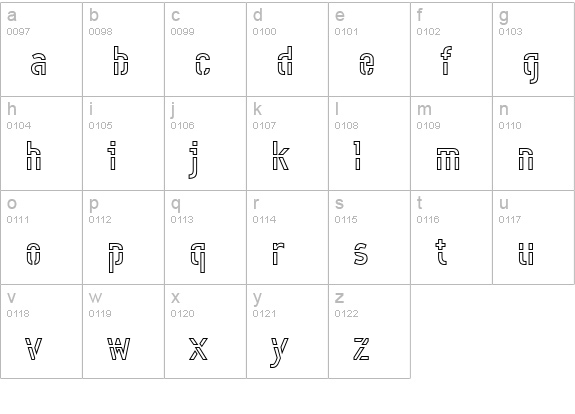
The Offline-Outline font is a stunning and versatile typeface that exudes modernity and sophistication. Its sleek outline design adds a touch of elegance to any project, making it perfect for a wide range of applications including branding, advertising, and graphic design. This unique font is available for free download at FontsMarket.com, where you can easily access and use it in your creative endeavors. With its clean lines and stylish appearance, the Offline-Outline font is sure to make a memorable impact on your designs, helping you stand out from the crowd. Elevate your projects with this eye-catching and contemporary font today!